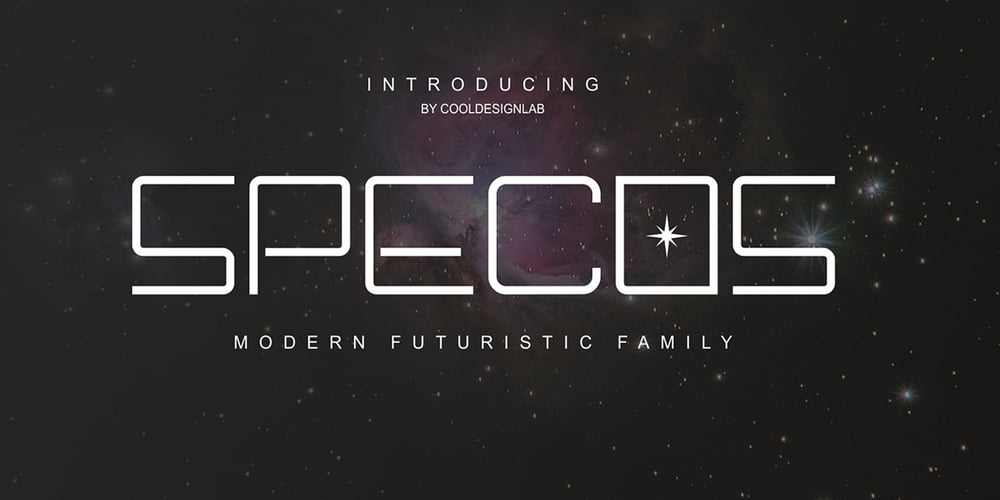
Specos Font Family was designed by Kurniadi Saputra and published by Cooldesignlab. Specos contains 7 styles and family package options. Envision a gateway to the future with the Specos Family Font, a vertical typeface designed with overpowering dynamism and unwavering strength. Illuminated with an array of sleek thin, balanced normal, and tenacious bold sizes, it effortlessly marries the versatility of uppercase and lowercase characters with a touch of innovative uniqueness. Giving birth to an almost square mystique, its characters don’t compromise on readability, radiating pure elegance. Taking a journey through the realms of science fiction, delicately forged cards, and bespoke artwork, the Specos Family Font invites you to embrace a mesmerizing minimalist design that heralds a peek into the potentialities of tomorrow. Revel in the essence of this adventure and share your glimpse of the prospective future.